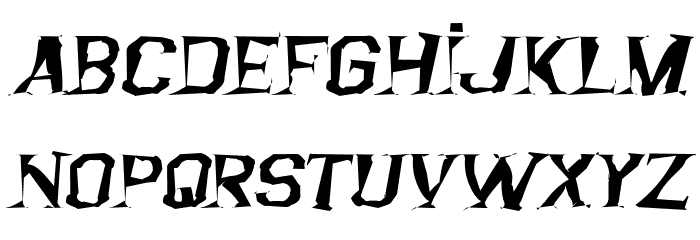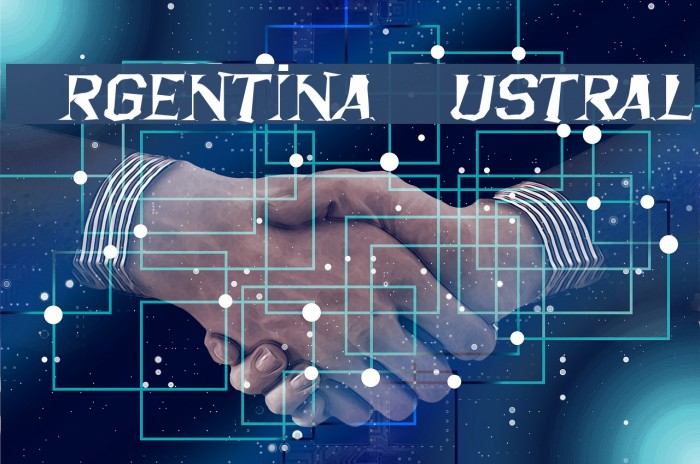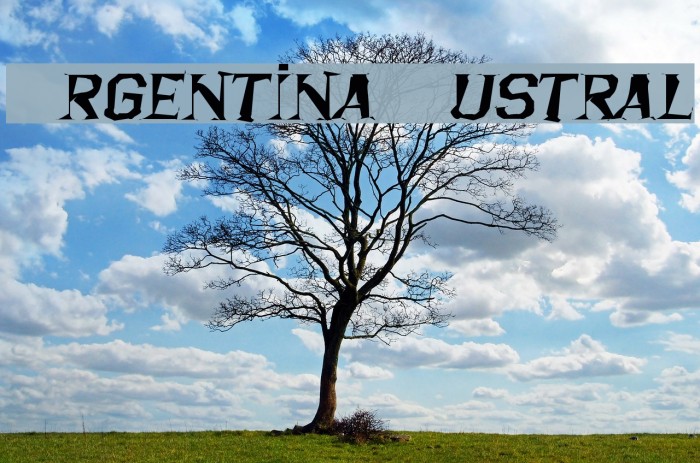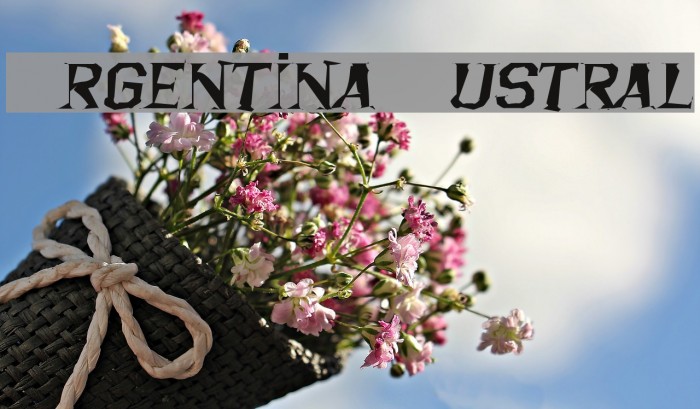
Argentina Austral Font
This font features a bold and striking design with sharp, angular edges and a slightly distressed appearance. The uppercase letters are prominent, with a unique style that combines elements of both modern and vintage aesthetics. The characters have a dynamic presence, making them suitable for attention-grabbing headlines or logos. The overall look is both edgy and artistic, with a touch of ruggedness that adds to its distinctive charm.
A bold, angular font with a distressed, edgy style.
- Proposed Projects: Ideal for use in branding, poster design, album covers, and any project requiring a bold, artistic statement.
- Overall Style: Modern, Vintage